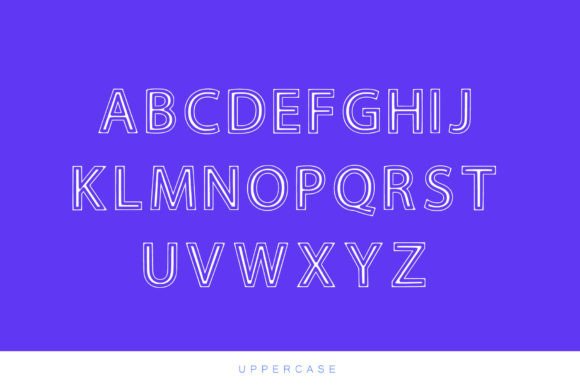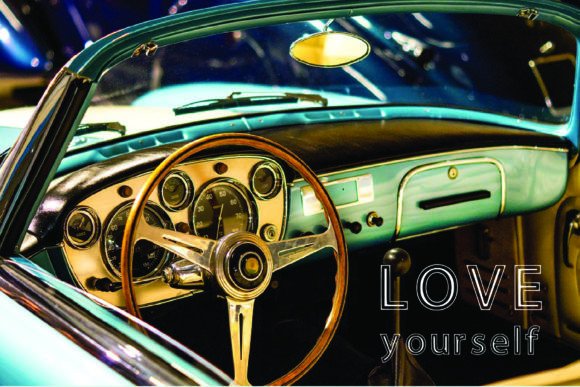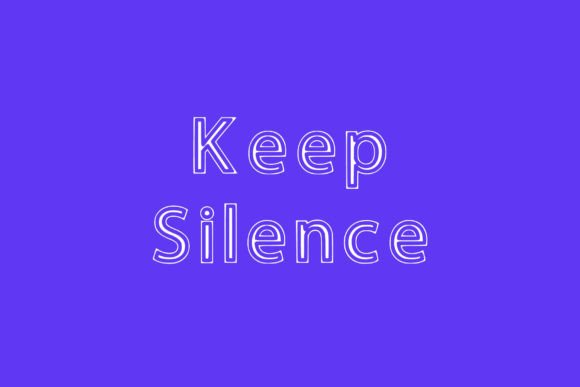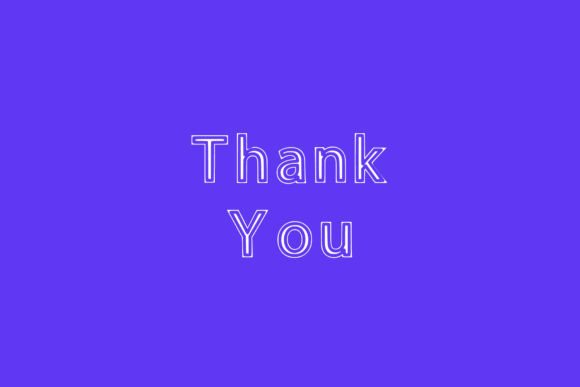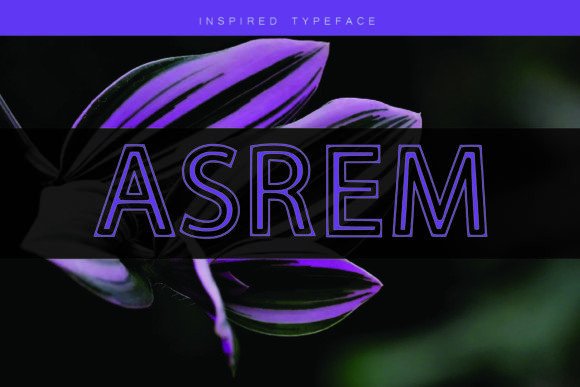
Discover the Beauty of Asrem Font: Elevate Your Designs with Timeless Elegance
Are you a designer or crafter looking for a font that can add a touch of elegance and sophistication to your work? Look no further than the Asrem Font. This lovely and timeless font is the perfect choice for creating eye-catching logos, branding, and quotes that will leave a lasting impression on your audience. In this article, we’ll explore the unique features of Asrem Font and why it’s a must-have for any designer or crafter.
The Unique Charm of Asrem Font
One of the standout features of Asrem Font is its unique and beautiful touch. Every letter has been carefully crafted to bring a sense of elegance and refinement to your designs. Whether you’re working on a logo, branding, or quote, Asrem Font is sure to make your design come alive. The font’s classic and timeless look makes it versatile enough to be used in a variety of design projects, from modern and sleek to vintage and rustic.
When it comes to creating logos and branding, the font you choose can make all the difference. Asrem Font is an excellent choice for several reasons. Firstly, its unique and beautiful touch ensures that your logo or branding stands out from the crowd. Secondly, the font’s timeless elegance ensures that your design won’t look dated or trendy. This means that you can use Asrem Font for years to come without worrying about it going out of style.
Add a Touch of Elegance to Your Quotes
Asrem Font is also perfect for creating eye-catching quotes that will grab the attention of your audience. The font’s classic and refined look makes it ideal for use in inspirational quotes, motivational posters, and social media graphics. Whether you’re a blogger, social media influencer, or designer, Asrem Font can help you create quotes that are both beautiful and impactful.
Why Designers and Crafters Love Asrem Font
So, why do designers and crafters love Asrem Font? For starters, the font is incredibly versatile and can be used in a variety of design projects. Additionally, the font’s unique and beautiful touch ensures that your designs stand out from the crowd. Asrem Font is also easy to read and understand, making it perfect for use in body text, headings, and titles.
Tips for Using Asrem Font
Here are some tips for getting the most out of Asrem Font:
- Use Asrem Font for logos and branding to create a unique and memorable identity for your business or brand.
- Pair Asrem Font with other fonts to create a unique and visually appealing typography.
- Use Asrem Font for quotes and social media graphics to add a touch of elegance and sophistication.
In conclusion, Asrem Font is a lovely and timeless font that is perfect for designers and crafters looking to add a touch of elegance and sophistication to their work. With its unique and beautiful touch, Asrem Font is sure to make your designs come alive. Whether you’re working on a logo, branding, or quote, Asrem Font is an excellent choice. So why wait? Download Asrem Font today and start creating stunning designs that will leave a lasting impression on your audience.
Overall, Asrem Font is a must-have for any designer or crafter looking to elevate their designs with timeless elegance. Its versatility, readability, and unique charm make it the perfect choice for a wide range of design projects. So, what are you waiting for? Give Asrem Font a try today and see the difference it can make in your designs!